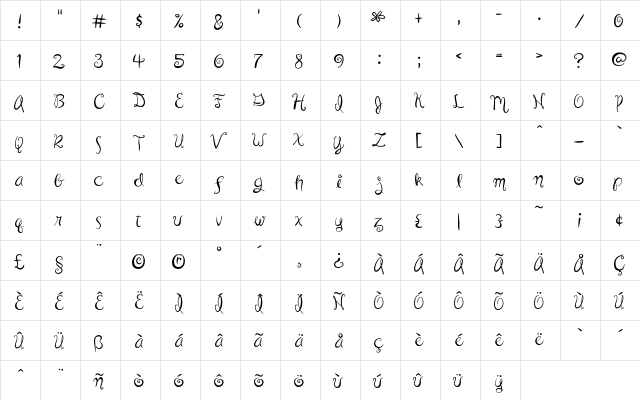
Flowerpot Regular
Design Context for Flowerpot Typeface
Flowerpot is a composed and adaptable typeface that performs quietly and consistently across a wide range of design contexts.